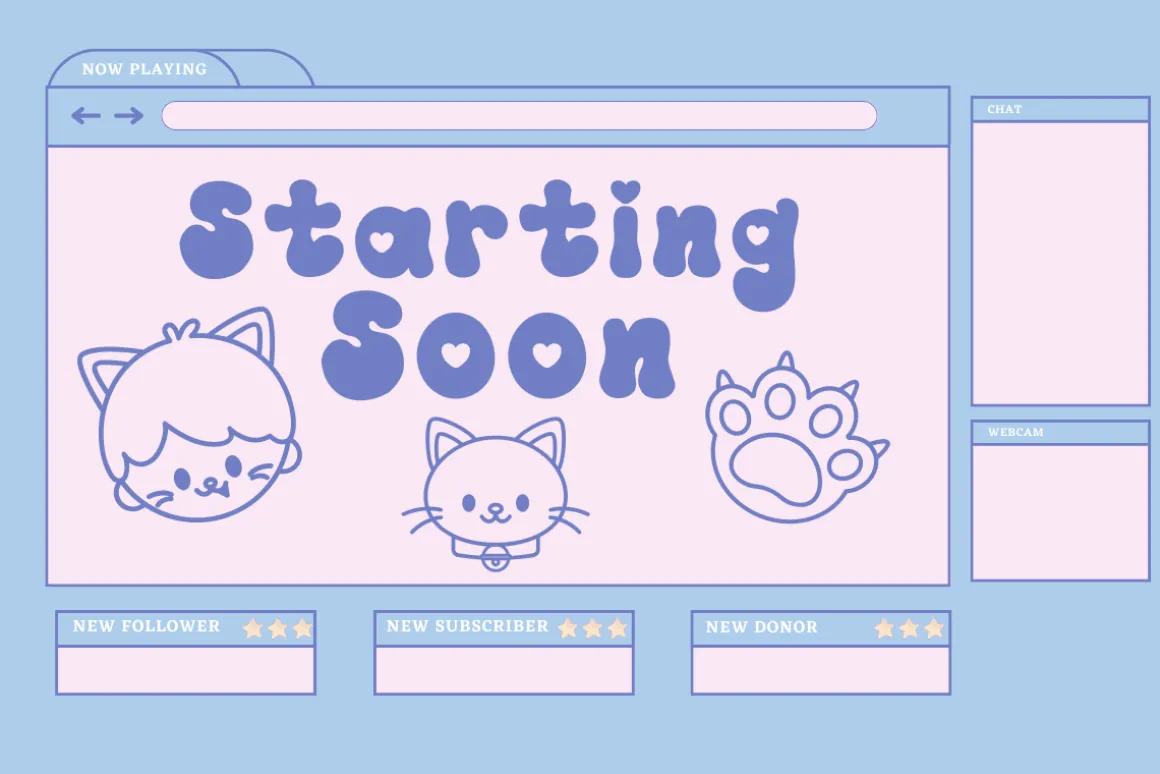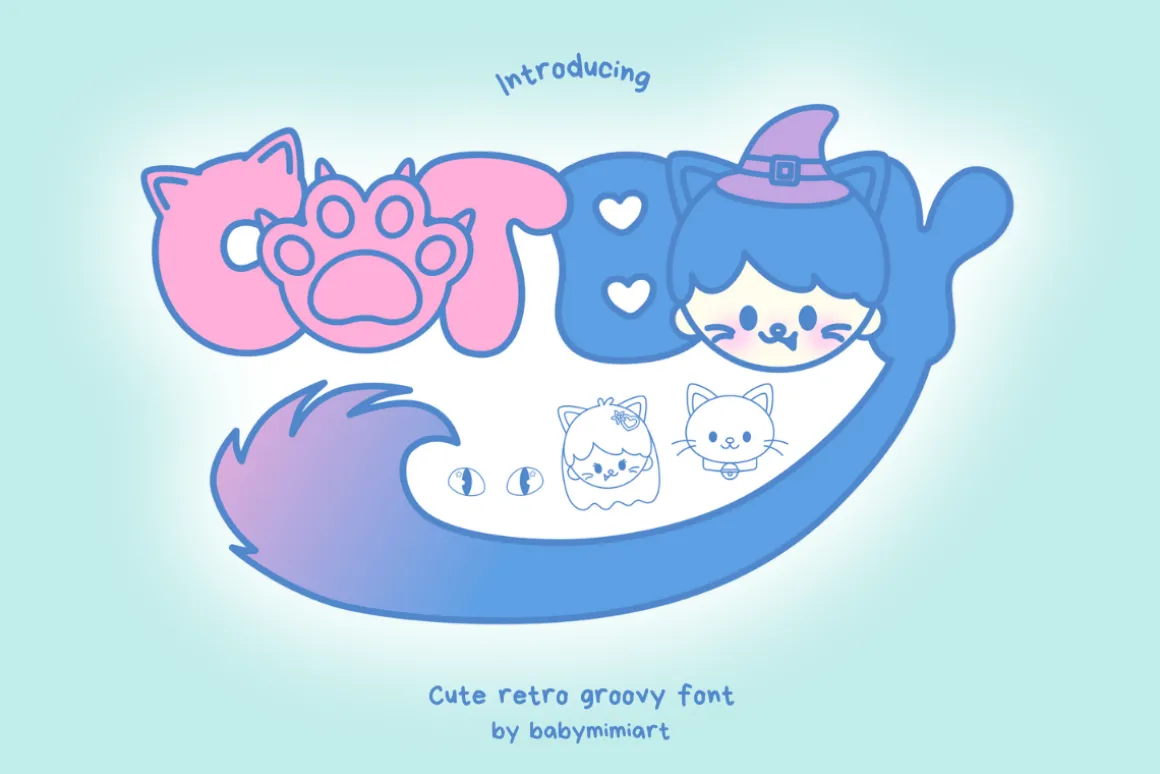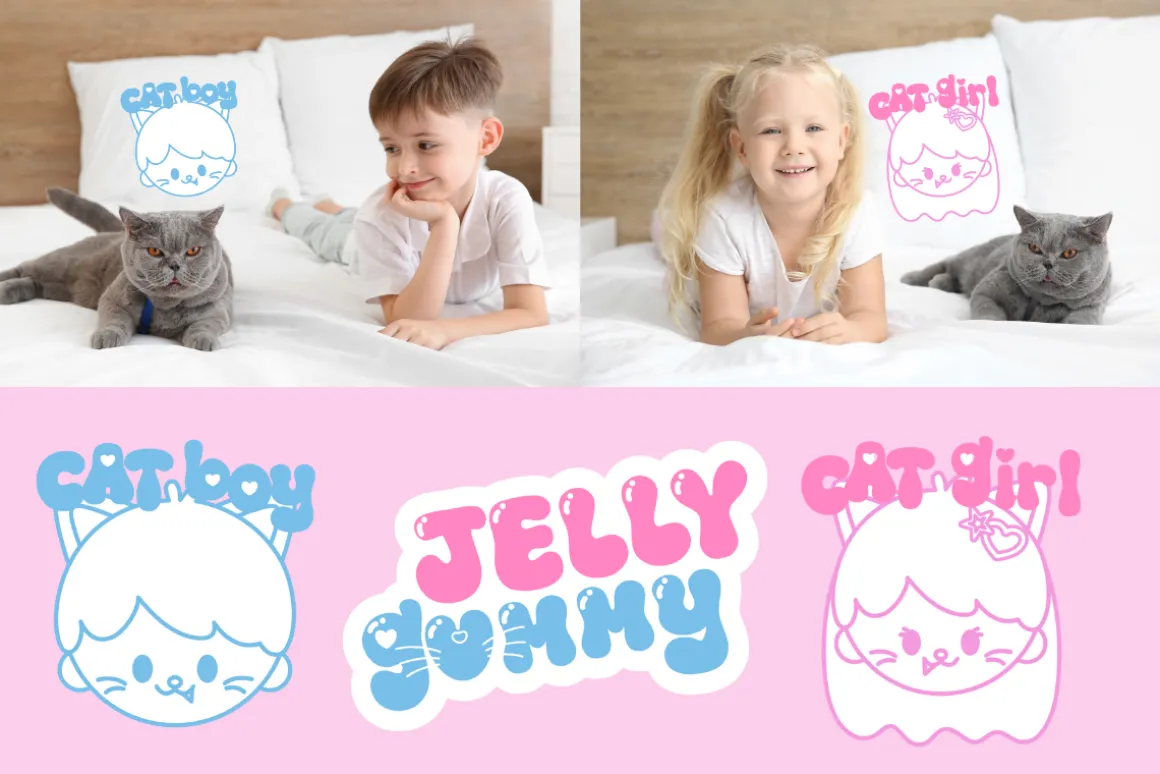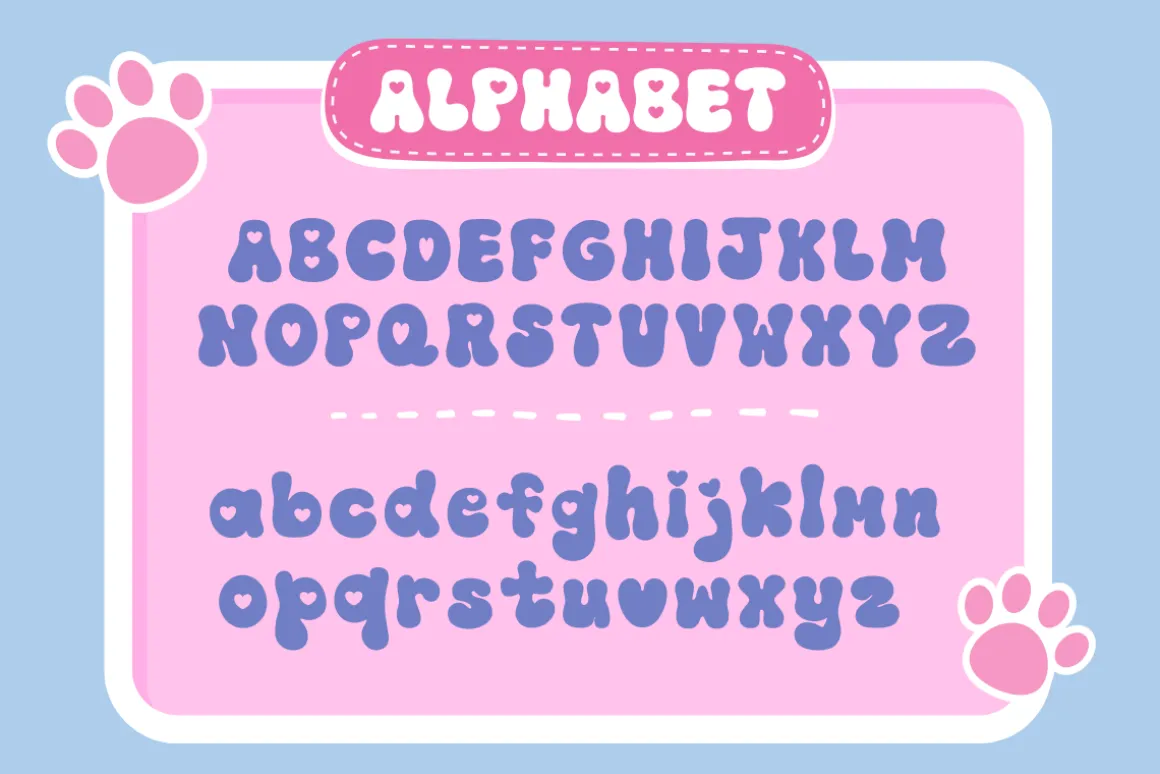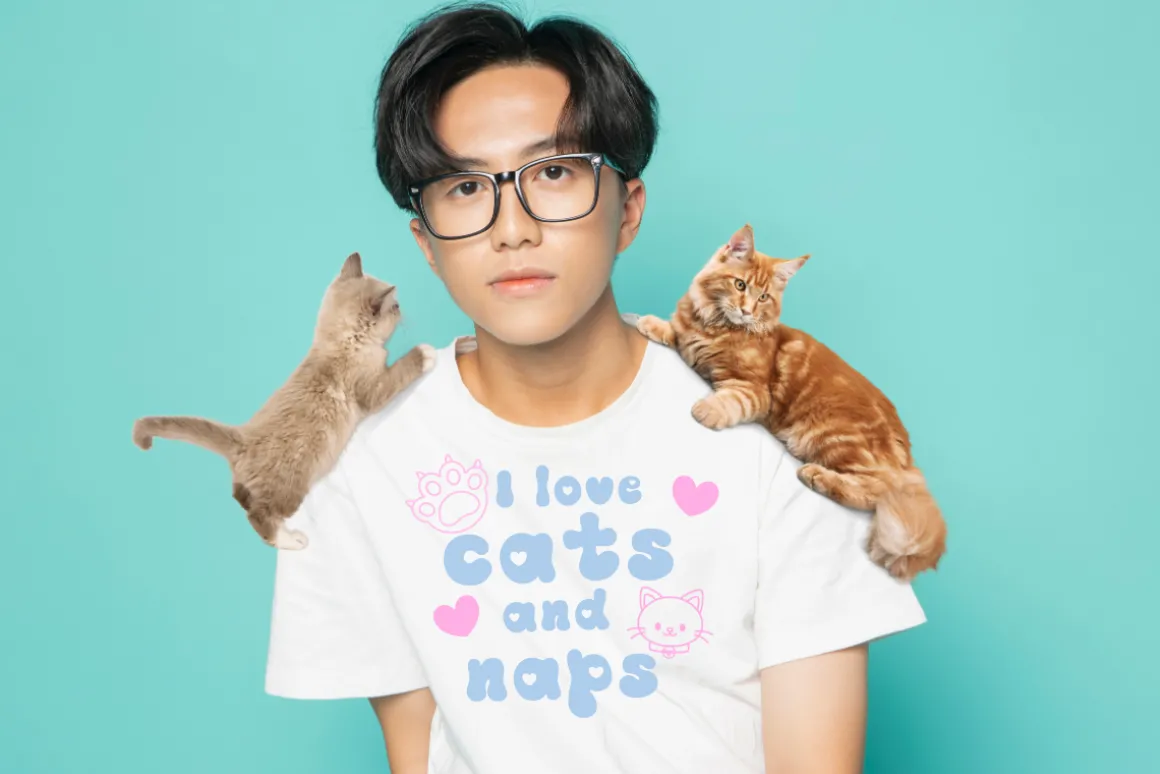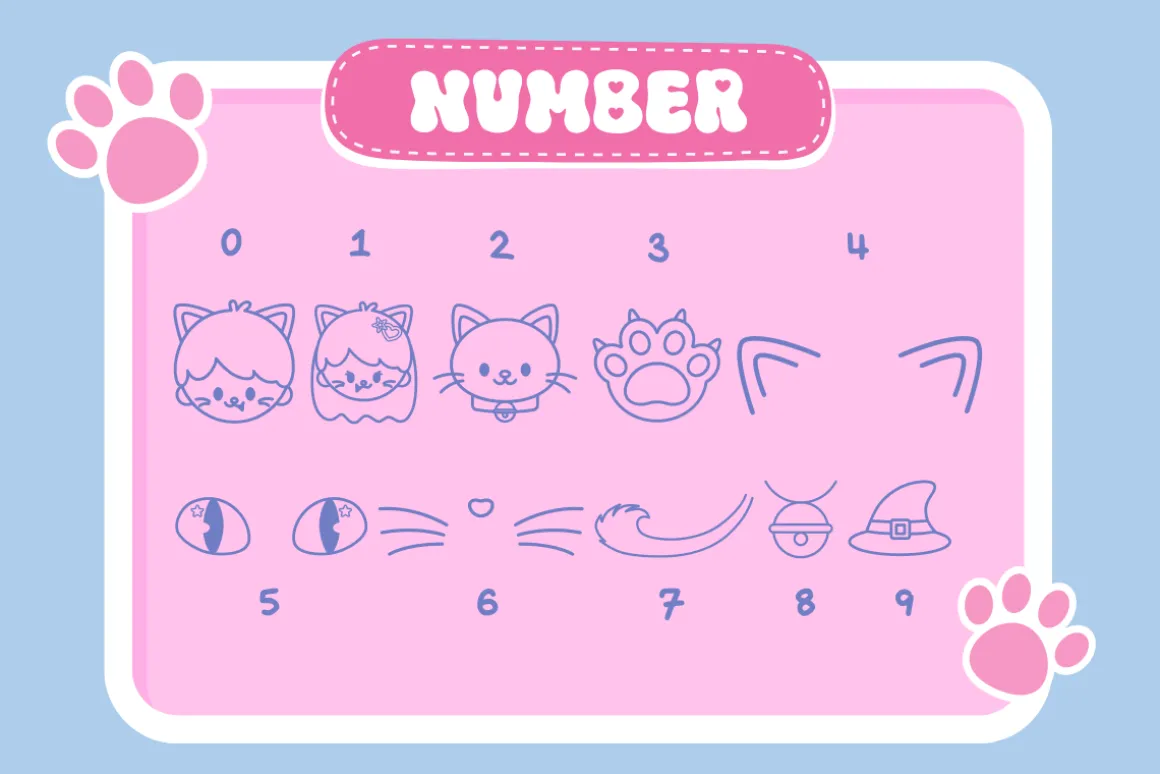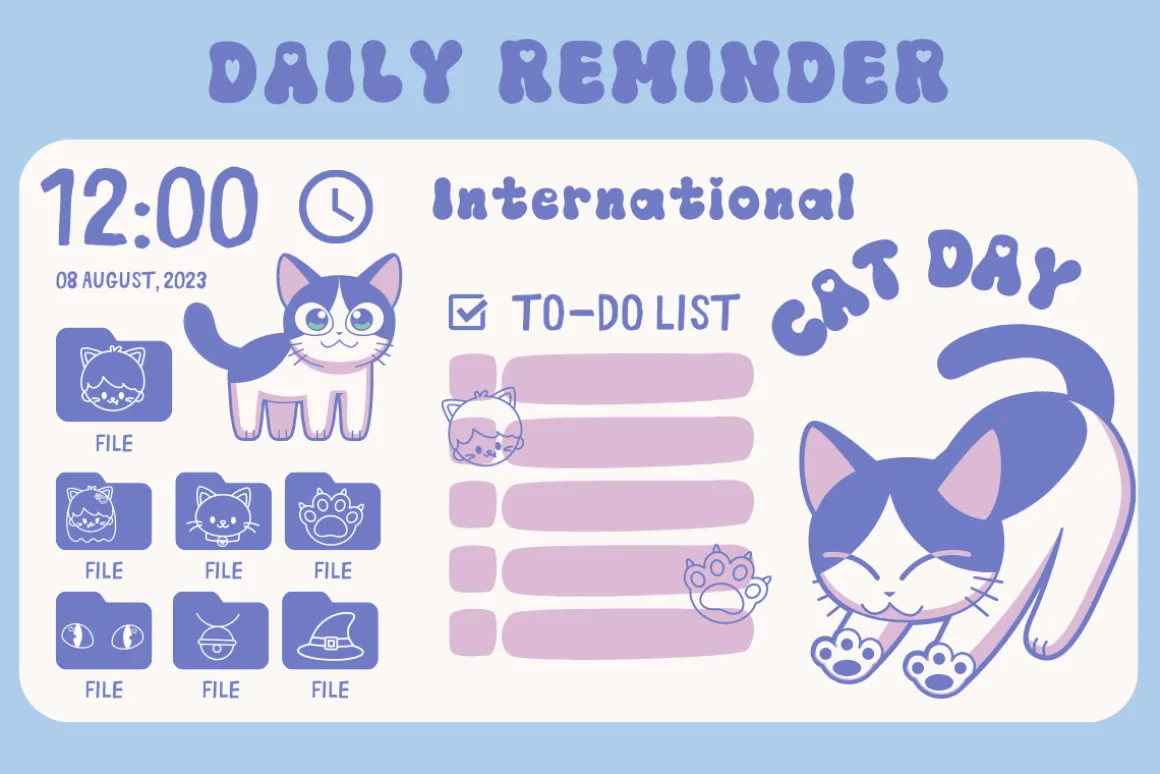
Cat Boy is a cute and groovy retro display font that exudes playful charm.With its whimsical curves and funky vibes, this font captures the spirit of the ’60s and ’70s.Perfect for posters, merchandise, and social media graphics,Cat Boy adds a fun and nostalgic touch to any design, making it purr-fectly delightful!